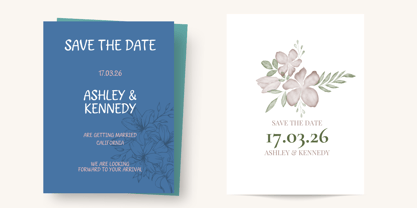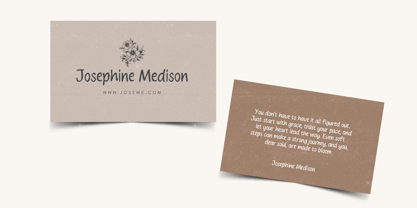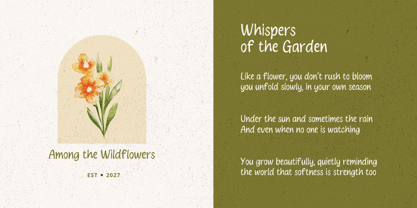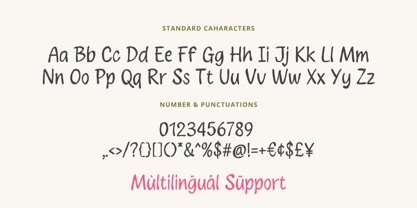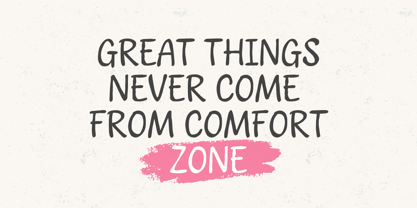
Whisper Snowflake
by Violatype
The Whisper Snowflake Font Family was designed by David Kasidi, Hasna Viola and published by Violatype. Whisper Snowflake contains 1 styles.
Introducing Whisper Snowflake, a beautifully delicate script font that captures the soft elegance of handwritten strokes with a luxurious, wintery charm.
Crafted for designers who seek a blend of romance, refinement, and grace, Whisper Snowflake is ideal for a wide range of creative projects – from high-end branding to wedding invitations, social media graphics, packaging, and more.
Each letter is designed to flow harmoniously, enhanced with a rich collection of alternates and elegant swashes, giving you endless design possibilities.
Designers: David Kasidi, Hasna Viola
Publisher: Violatype
Foundry: Violatype